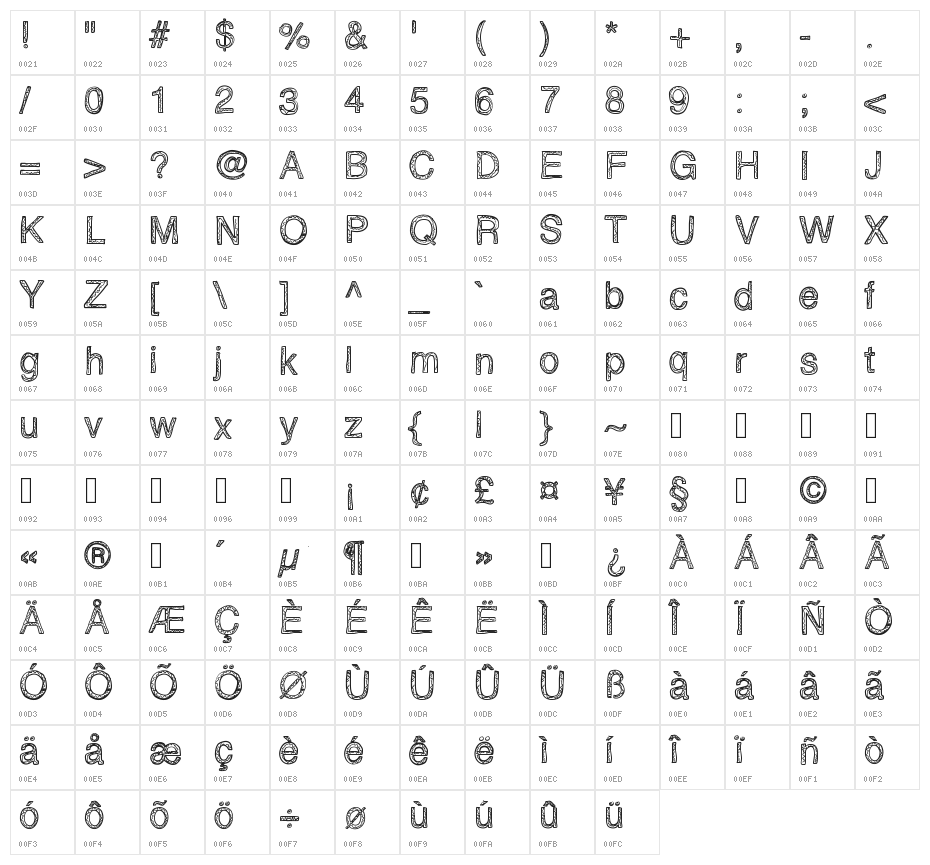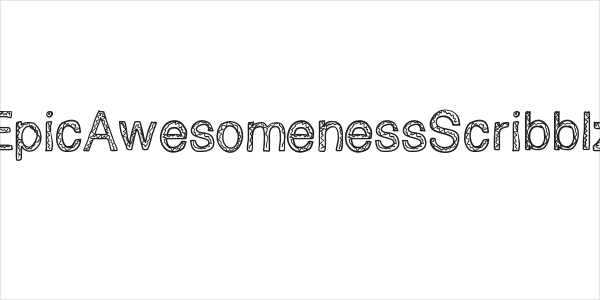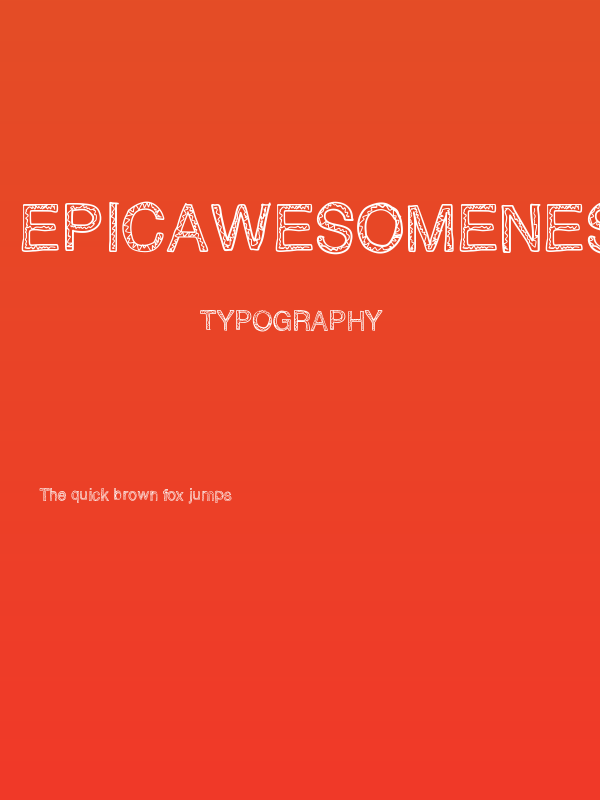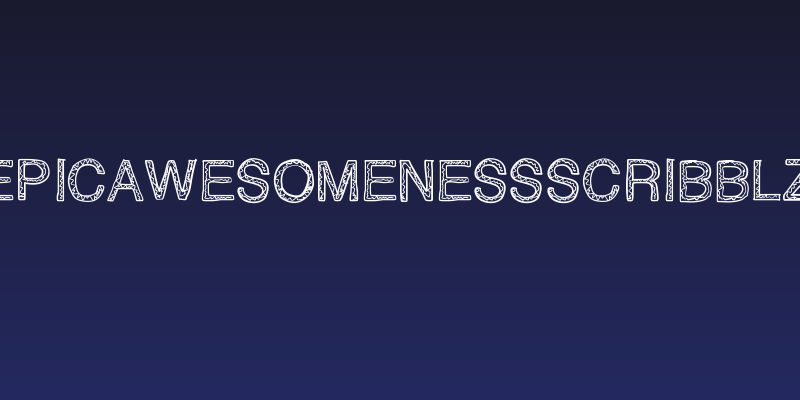
EpicAwesomenessScribblz Font
EpicAwesomenessScribblz Description
This font features a playful and whimsical design, characterized by its hand-drawn, doodle-like appearance. Each letter is outlined with a bold, uneven stroke, filled with intricate scribbles that give it a textured, artistic feel. The uppercase and lowercase letters maintain a consistent style, with rounded edges and a casual, informal vibe. Numbers and special characters are equally expressive, adding to the font's overall charm. This font is perfect for projects that require a fun and creative touch, such as children's books, greeting cards, or playful branding materials.
| Overall Style | Whimsical, Artistic, Playful |
| Proposed Projects | Ideal for children's books, greeting cards, playful branding, and creative projects. |